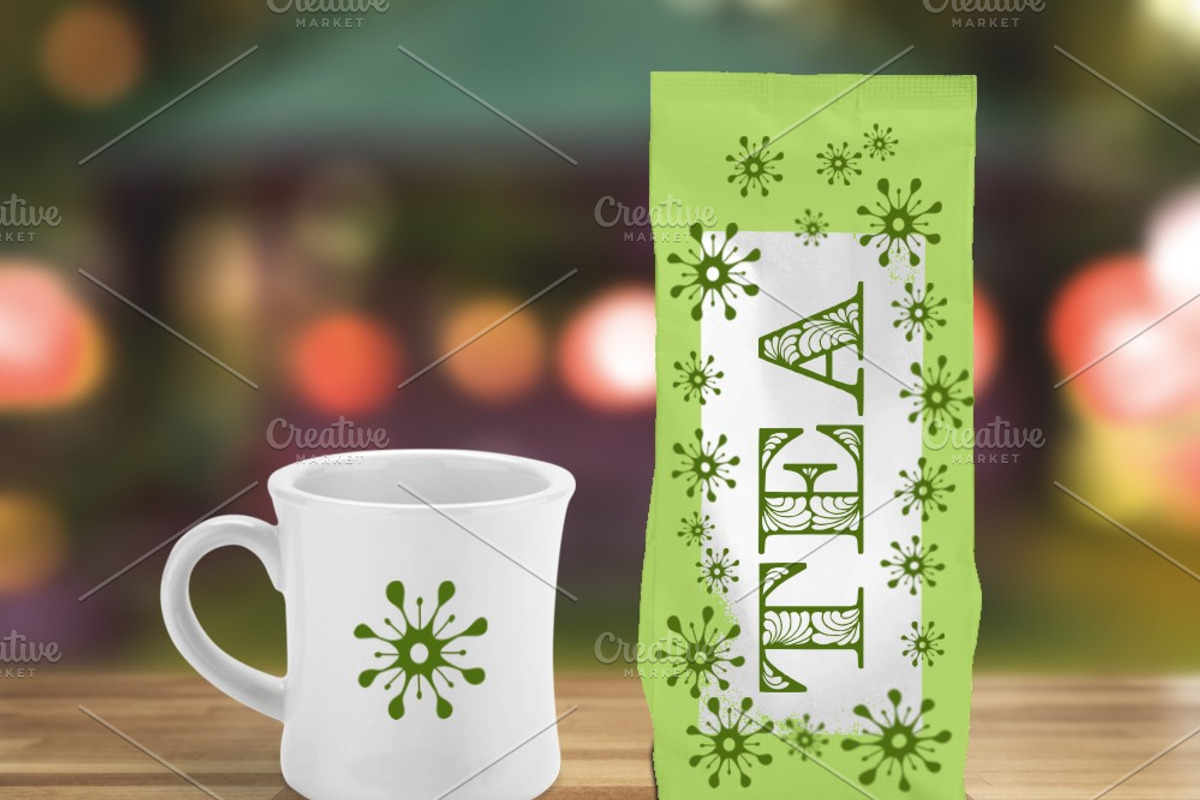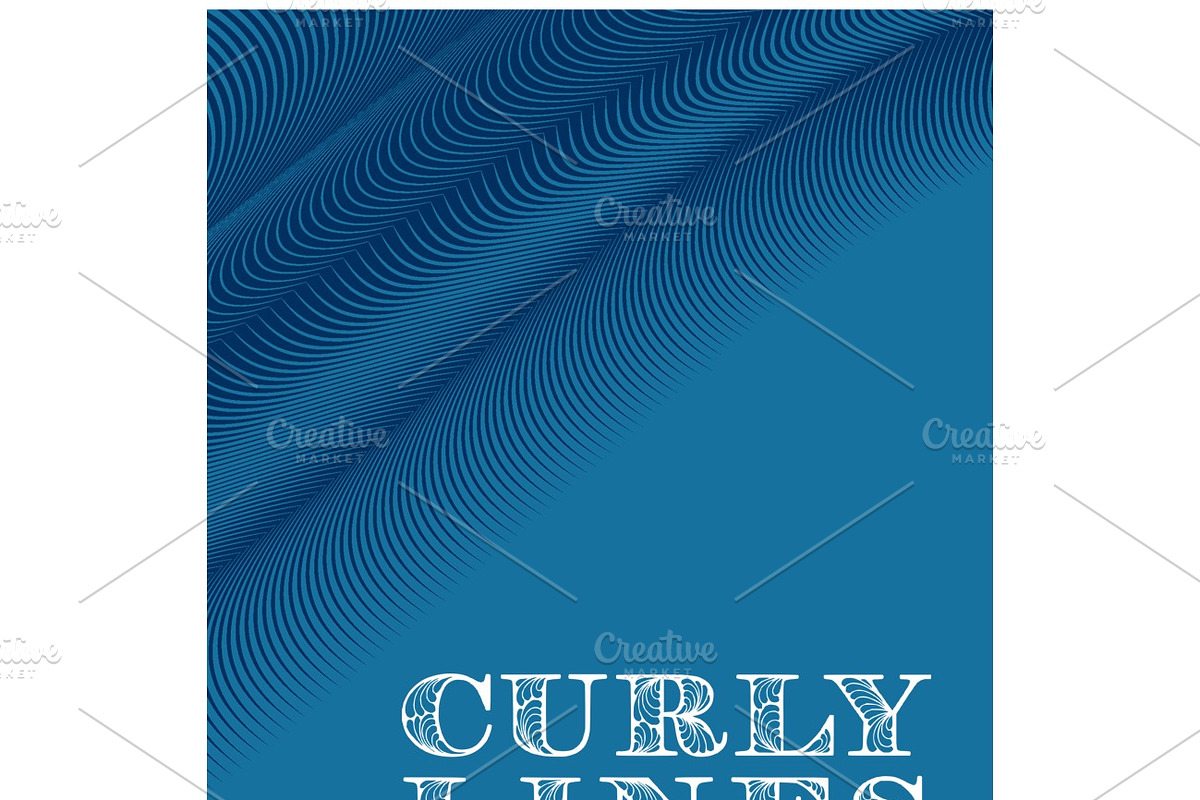
Retrograph Font
Retrograph Font by Digital Typeface Studio is a font selected for branding, posters, packaging, typography.
Why Retrograph Font is worth a look
Retrograph Font by Digital Typeface Studio fits naturally into Branding, posters, packaging, typography.